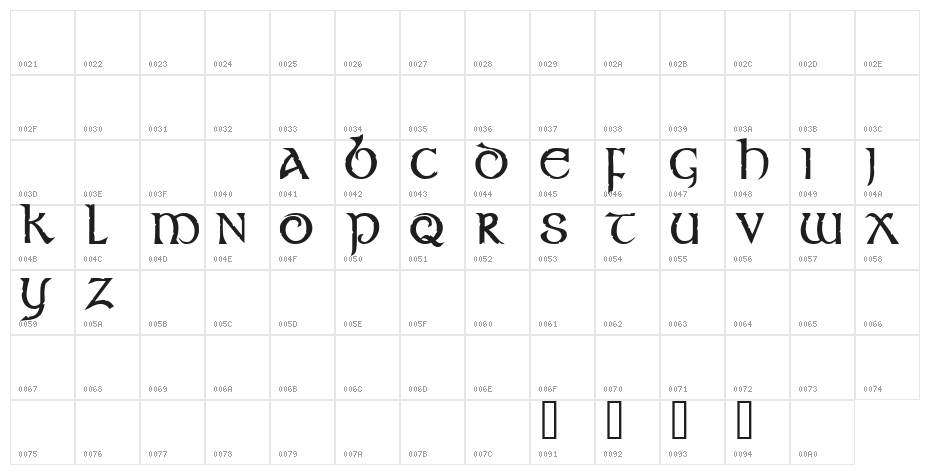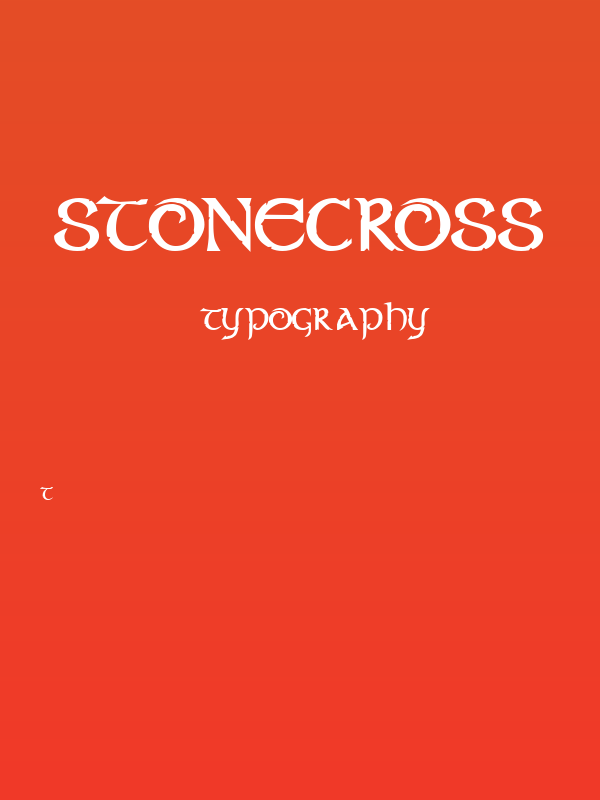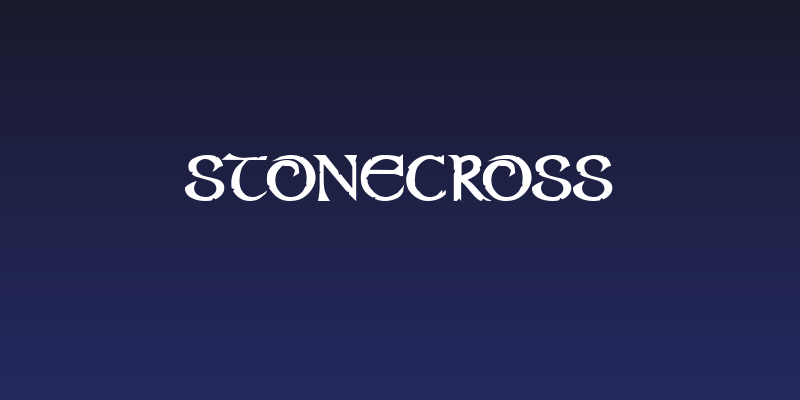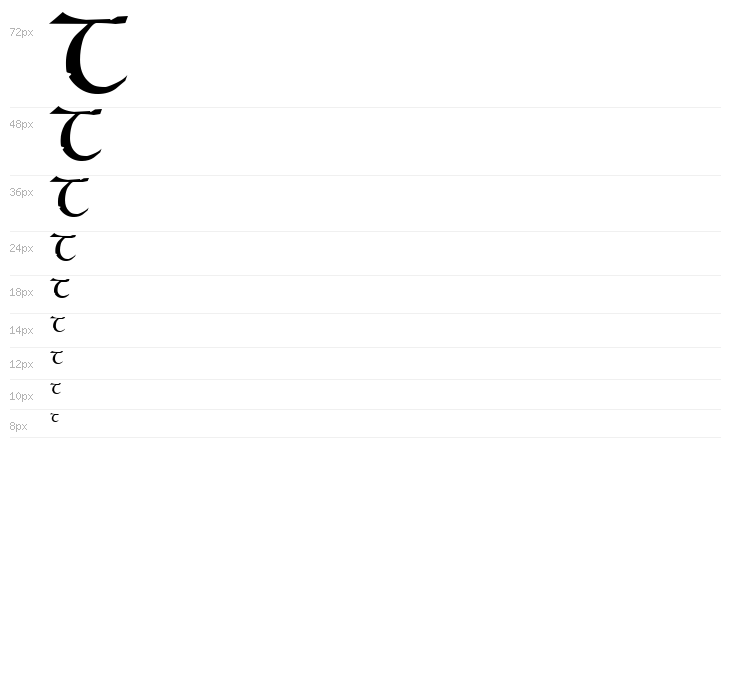
Stonecross Font
Fonts by The Scriptorium - Dave Nalle
| Caso d'uso | Logos, Headlines, Decorative text |
| Progetti proposti | Ideal for historical-themed designs, book covers, fantasy games, and branding that requires a classic yet modern touch. |